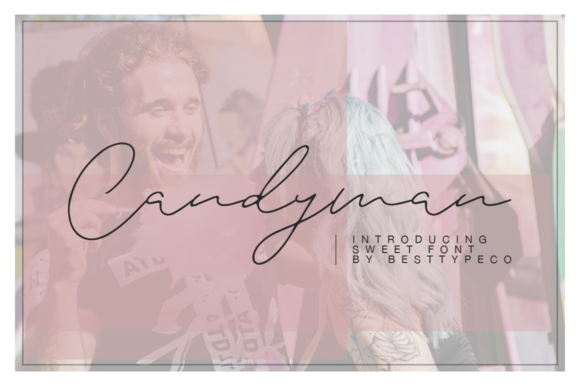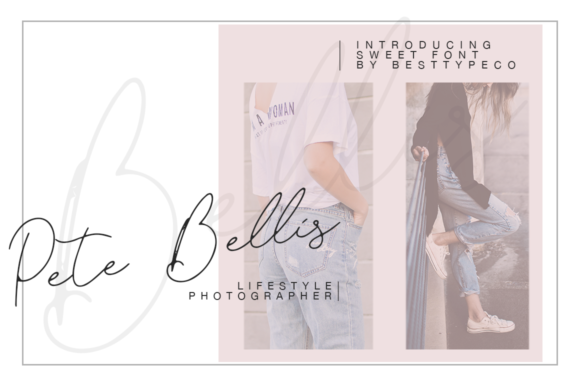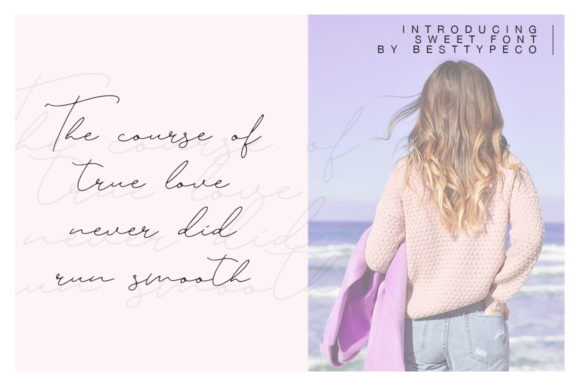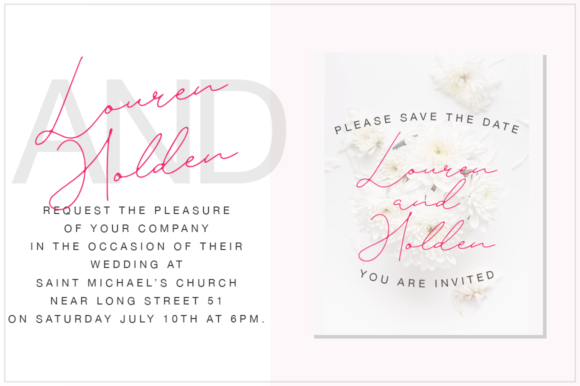
HomeScript FontsCandyman Font Script Fonts Candyman Font FacebookXPinterestWhatsApp Candyman Font Poster 2 Candyman Font Poster 3 Candyman Font Poster 4 About Candyman Font Candyman is a bold and unique script with a casual feel. DOWNLOAD ON CREATIVE FABRICAThis font is sold and delivered by Creative Fabrica. Font Canyon may earn a commission if you buy through this link. People also explored Richmans Font Riotic Font Dianora Font Basketball Font Brailes Font Weird Shadow Font Ab College Outline Font Stella Angelica Font Christmas Gnome Font 389 0 TagsCandyman Font Previous articleOur Santa FontNext articleFriendship Font LEAVE A REPLY Cancel reply Comment: Please enter your comment! Name:* Please enter your name here Email:* You have entered an incorrect email address! Please enter your email address here Website: Save my name, email, and website in this browser for the next time I comment. Personal Use Free Proudly Personal Use Free Read more about this font The Moshbusther Personal Use Free Read more about this font Sweety Blue Personal Use Free Read more about this font Fat Max Personal Use Free Read more about this font BLOG Elegant Wedding Invitation Fonts – Handwritten & Script Fonts Elegant Wedding Invitation Fonts Your wedding day is one of the most important moments of your life, and every detail matters—including your invitation design. Our... Fonts That Capture the Spirit of New York City Modern Sans-Serif Fonts That Brands Love in 2025 Best Fonts for YouTube Videos: Make Your Thumbnails Stand Out